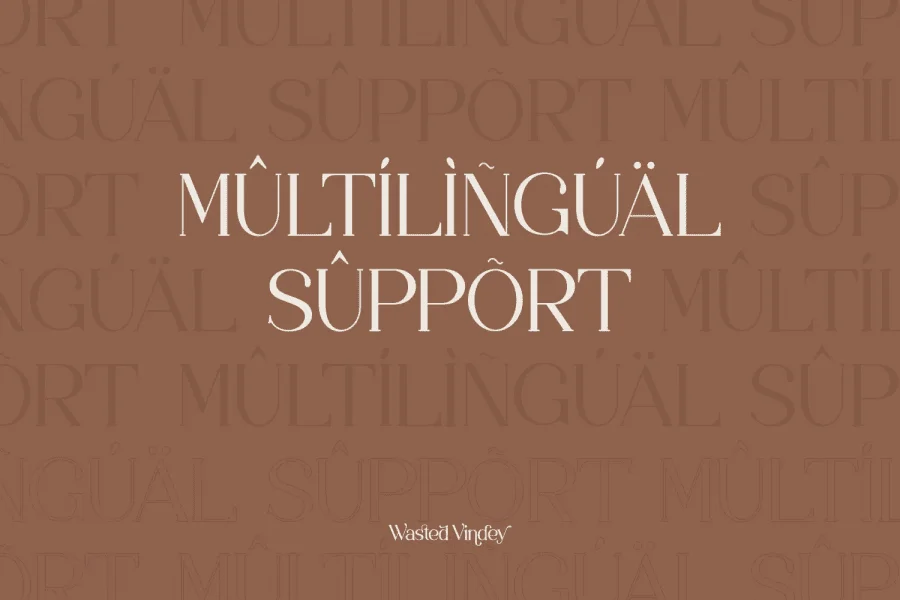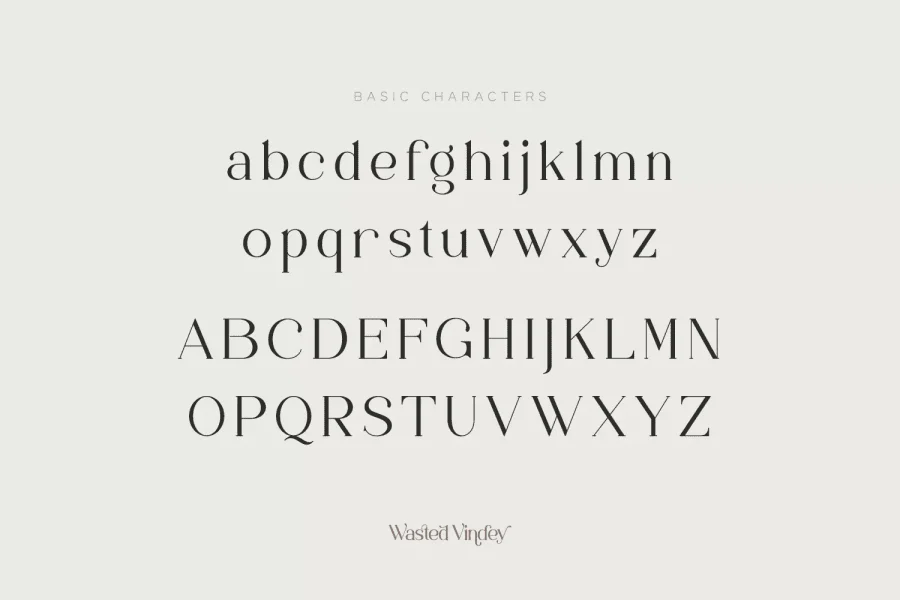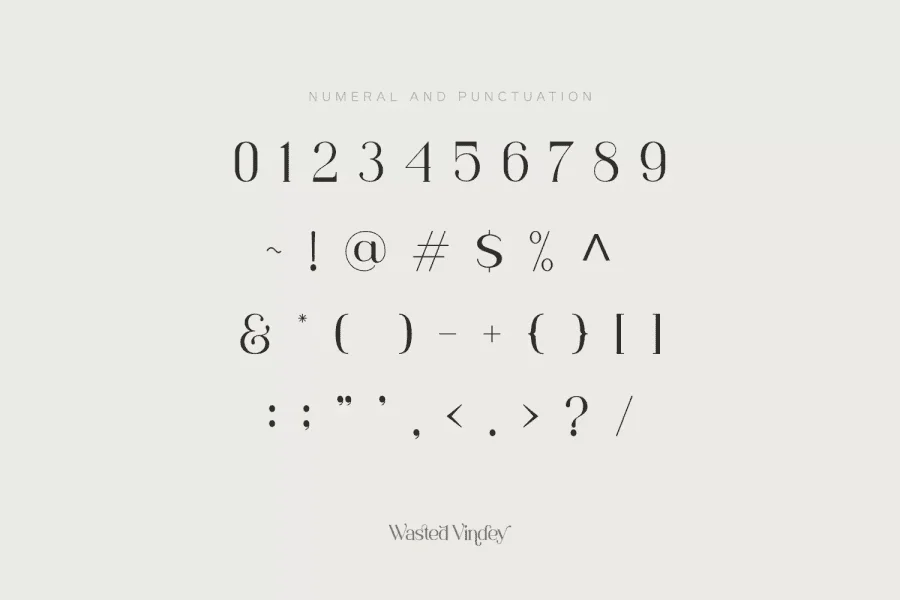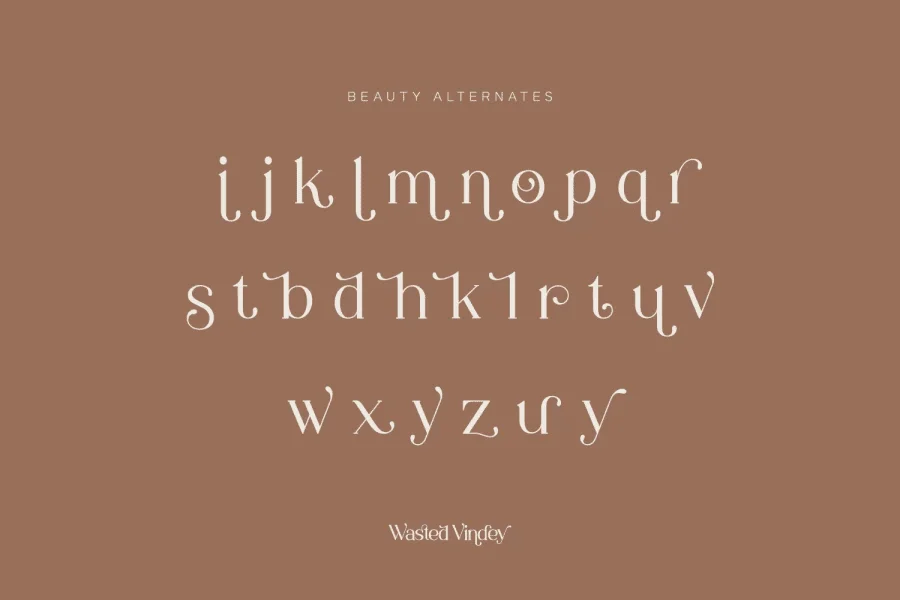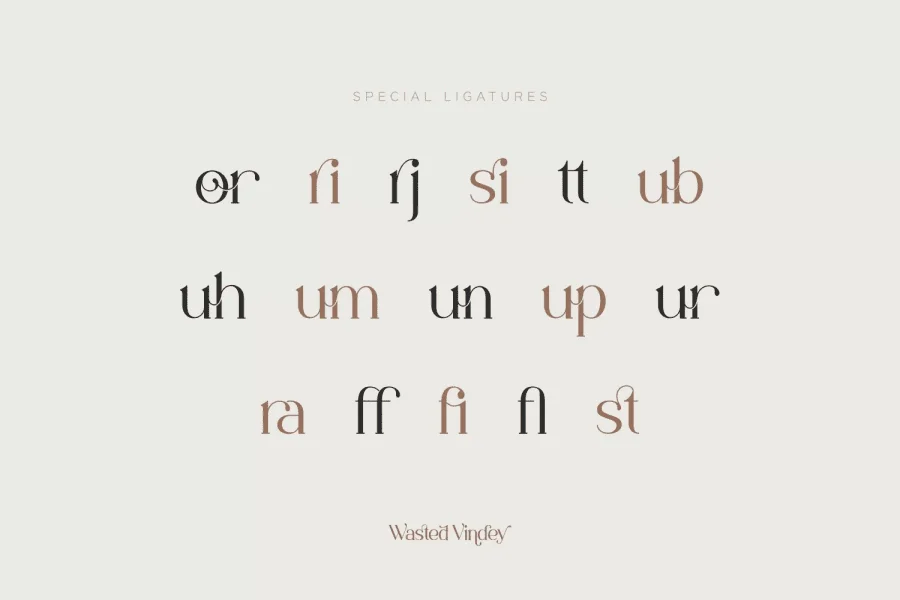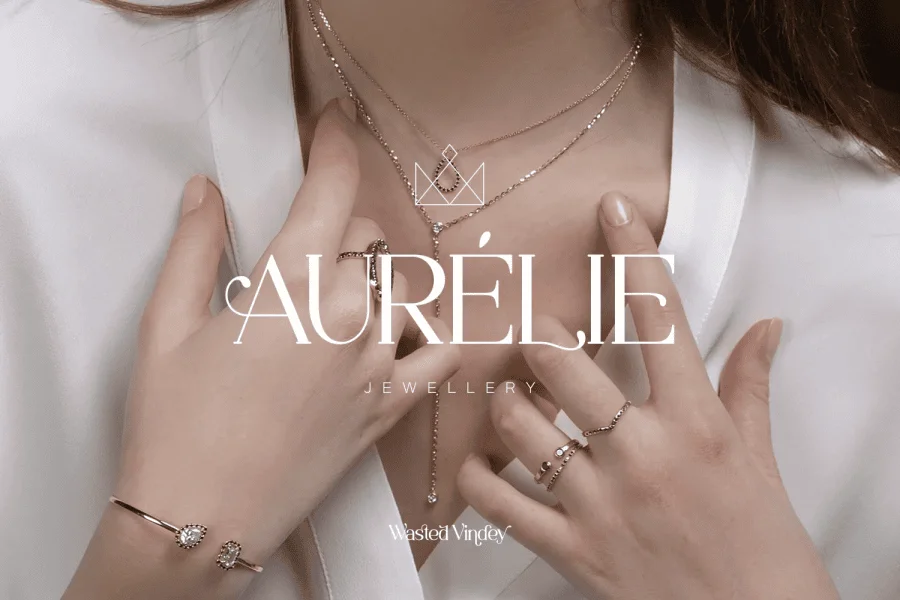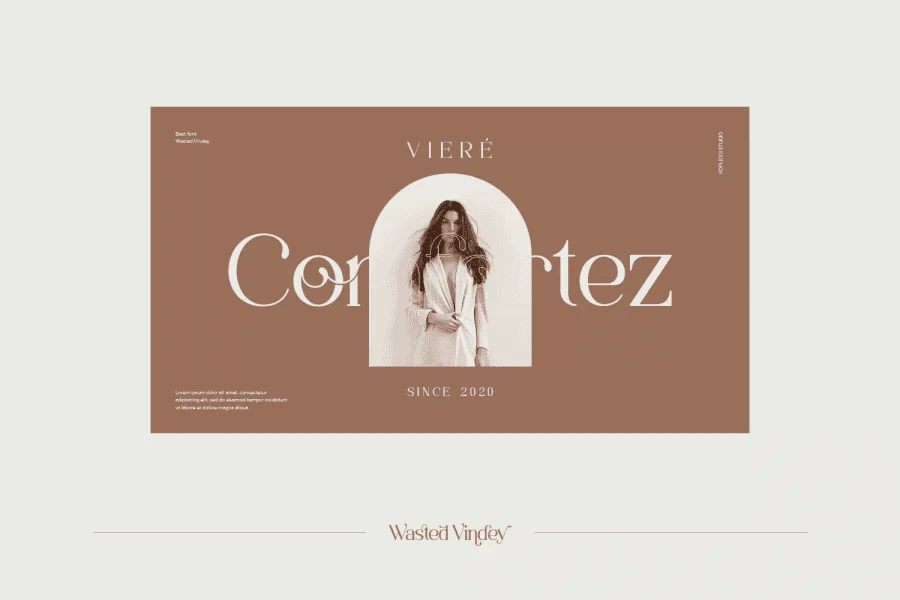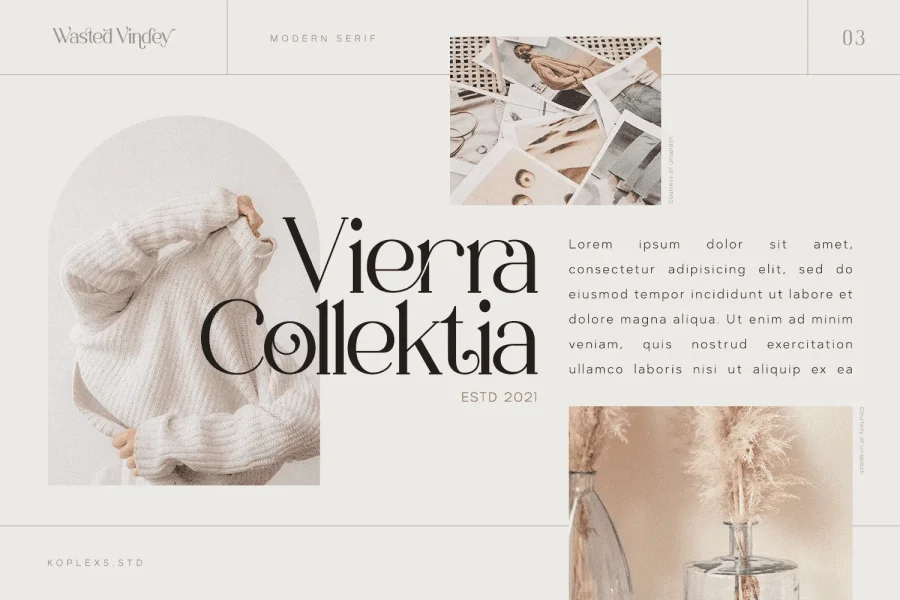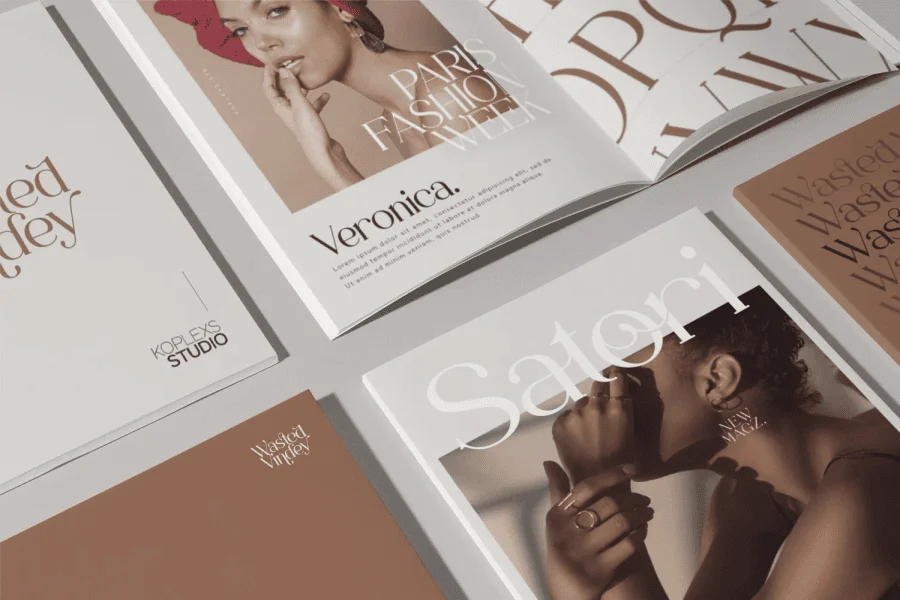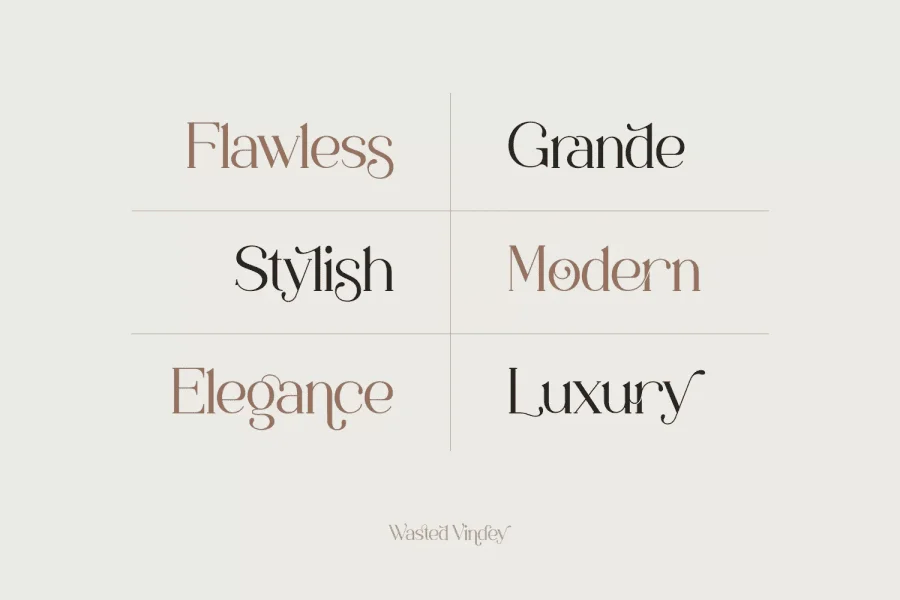
Wasted Vindey Font
Wasted Vindey – Classy Serif Font
Wasted Vindey Font is a sophisticated and elegant typeface designed to bring a touch of timeless refinement to your projects. With its sharp serifs, balanced proportions, and subtle contrast in strokes, this font exudes luxury and professionalism. Perfect for high-end branding, editorial design, and upscale packaging, Wasted Vindey adds a sense of prestige and authority to any layout. Its versatility makes it ideal for headlines, logos, and invitations, ensuring your designs stand out with polished elegance.
Combining classic serif aesthetics with modern details, Wasted Vindey offers exceptional readability while maintaining a distinctive character. The font’s clean lines and graceful curves make it suitable for both print and digital media, from fashion magazines to luxury product labels. Whether used in bold statements or delicate typography pairings, Wasted Vindey delivers a harmonious blend of tradition and contemporary style, making it a must-have for designers seeking a font with enduring appeal.